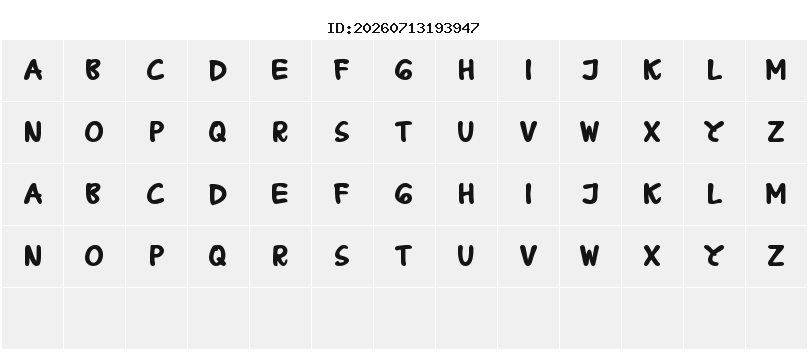
• Font Name: B Prahara TH_Tlsn Tgn
• Font Style: Gras
• Full Font Name: B Prahara TH_Tlsn Tgn Bold
• Version: Version 1.00 November 23, 2008, initial release
About B Prahara TH_Tlsn Tgn.ttf
B Prahara TH_Tlsn Tgn.ttf is a modern, elegant sans-serif font designed for ultimate readability and visual harmony. Perfect for branding, headlines, web design, and print materials.